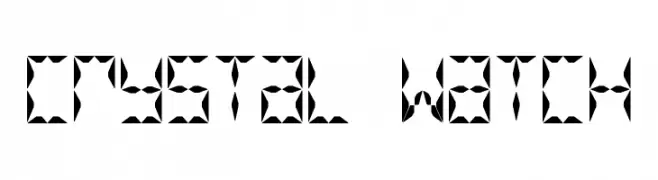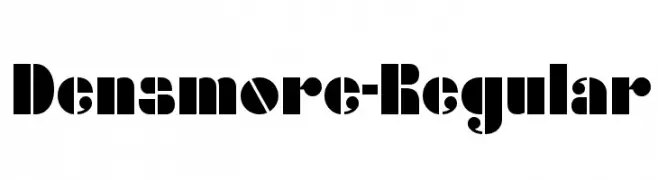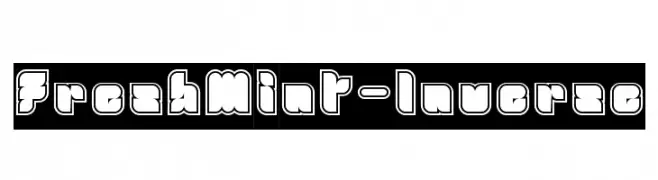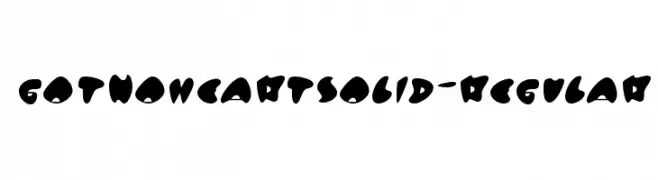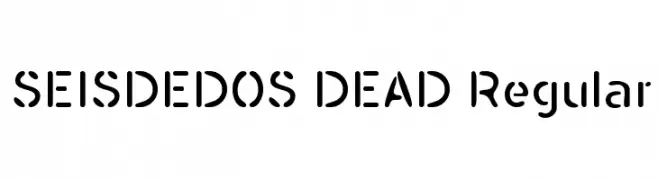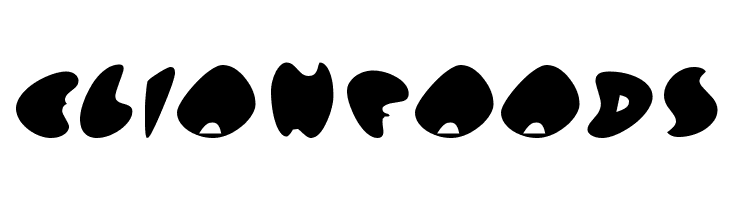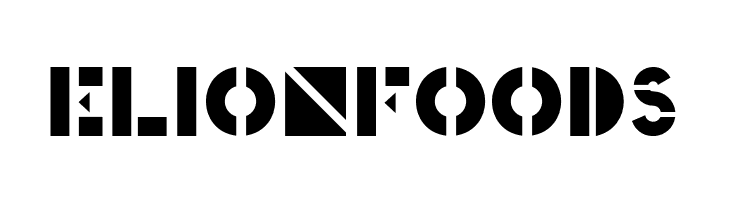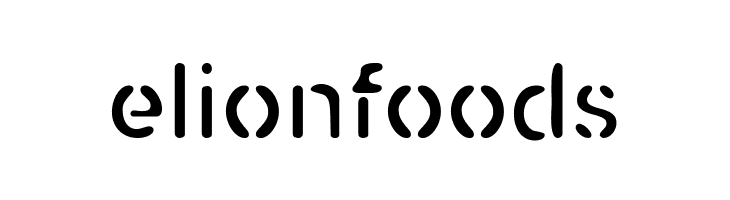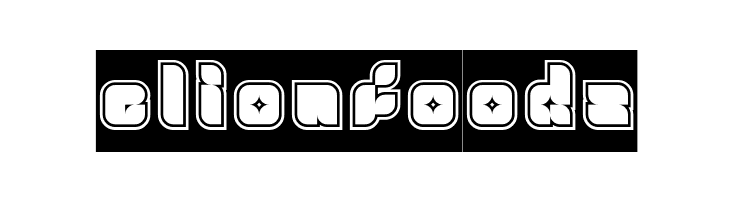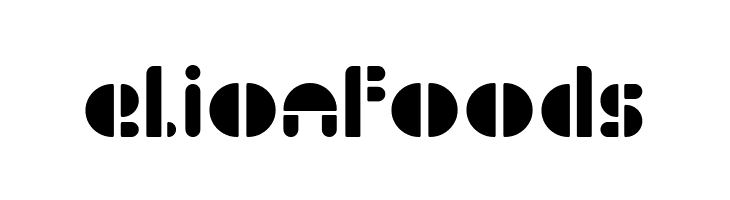
A geometric, decorative font with diamond-shaped cutouts and bold, angular lines.
A bold, decorative font with high contrast and unique geometric cutouts.
A bold, playful font with heart-shaped cutouts in each character.
A bold, geometric font with sharp angles and circular cutouts, ideal for decorative use.
A bold, geometric font with stencil-like cutouts and an industrial feel.
A bold, playful font with bubbly, irregular shapes and whimsical cutouts.
A bold, modern stencil-like font with a futuristic and industrial feel.
A pixelated, retro-style font with a blocky, digital appearance.
A bold, playful font with thick outlines and star-like cutouts for a decorative effect.
A bold, geometric stencil-style font with rounded shapes and cutouts.